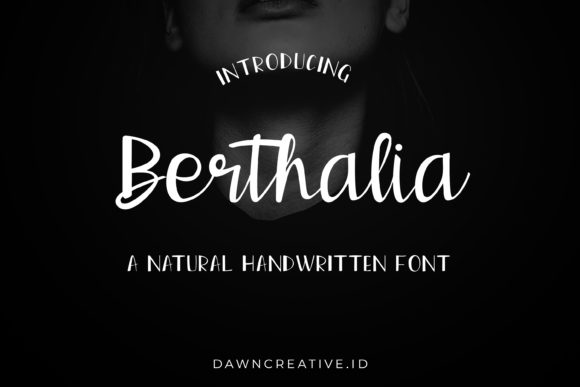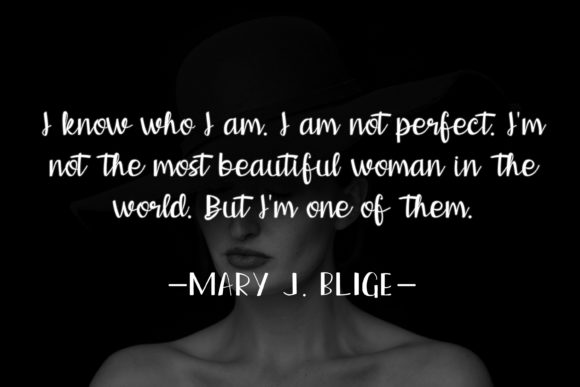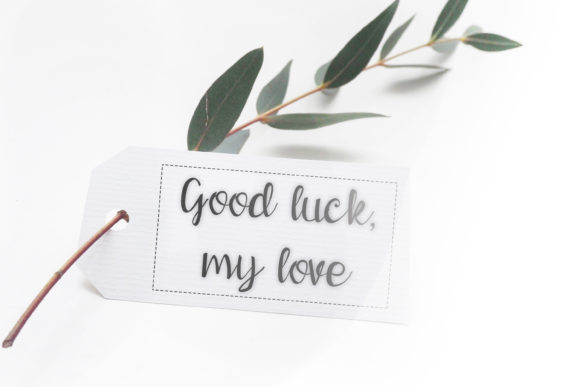
Berthalia Font
About Berthalia Font
Berthalia is a natural handwritten font, that is a beautiful, simple and elegant. Get inspired by its unique look & feel!